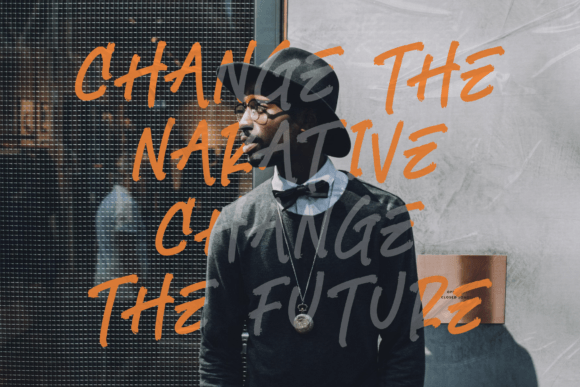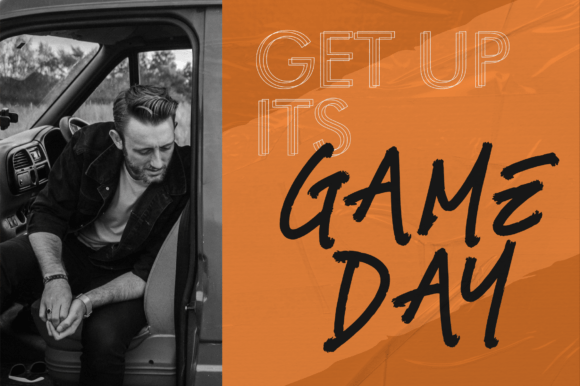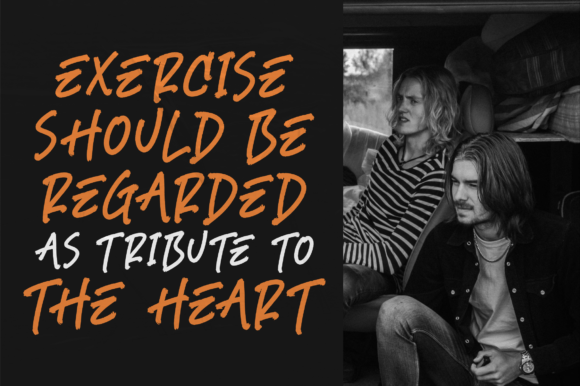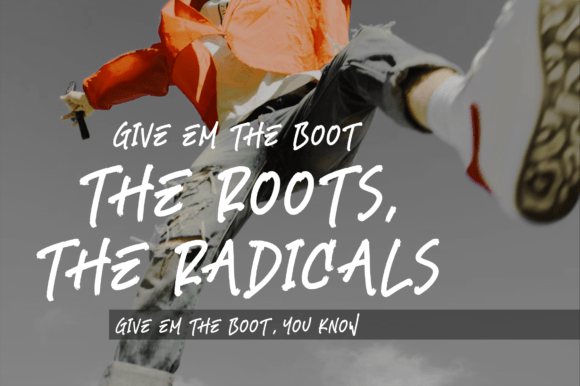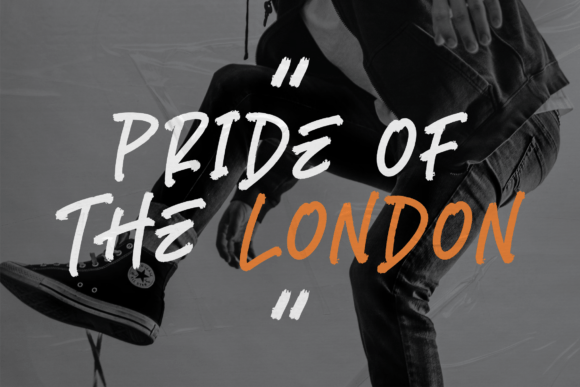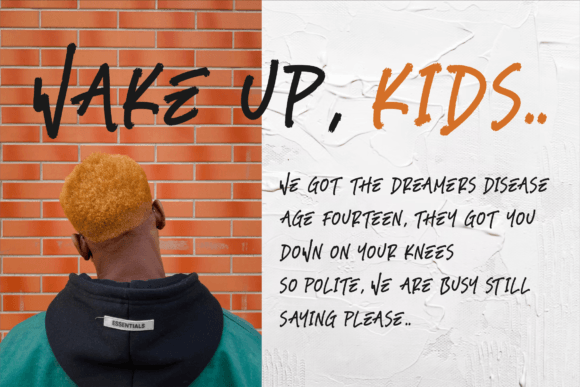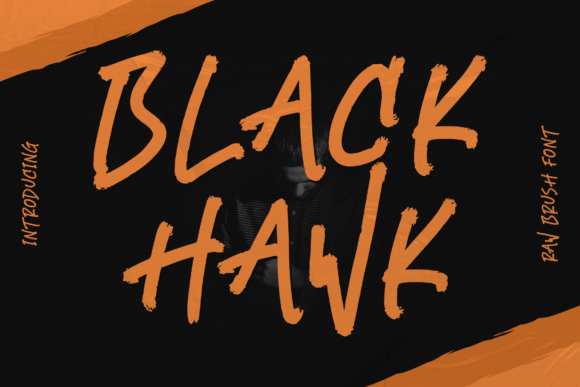
Introducing Black Hawk Font: The Raw Brush Font for Creative Projects
Are you a designer or crafter looking for a unique and stylish font to elevate your projects? Look no further than Black Hawk Font, a raw brush font from Perspectype Studio. This versatile font is perfect for a wide range of applications, from logos and branding projects to homeware designs, product packaging, and more.
What is Black Hawk Font?
Black Hawk Font is a carefully crafted raw brush font that exudes a sense of elegance and sophistication. With its bold, expressive brushstrokes, this font is ideal for adding a touch of personality to any project. Whether you’re working on a logo, a poster, or a product label, Black Hawk Font is sure to make a statement.
Key Features of Black Hawk Font
- Raw Brush Style: Black Hawk Font features a unique raw brush style that gives it a distinctive, hand-crafted feel.
- Versatile: This font is suitable for a wide range of projects, from logos and branding to homeware designs, product packaging, and more.
- Elegant and Sophisticated: Black Hawk Font’s bold, expressive brushstrokes add a touch of elegance and sophistication to any project.
Project Ideas Using Black Hawk Font
Black Hawk Font is perfect for a wide range of projects, including:
- Logos and Branding Projects: Create a bold and memorable logo for your business or brand with Black Hawk Font.
- Homeware Designs: Add a touch of elegance to your homeware designs, such as cushions, tote bags, and wall art.
- Product Packaging: Make your product packaging stand out with Black Hawk Font’s bold and expressive brushstrokes.
- Mugs and Quotes: Create inspiring quotes and designs for mugs, water bottles, and other homeware items.
- Posters and Shopping Bags: Use Black Hawk Font to create eye-catching posters and shopping bags that showcase your brand’s personality.
- T-Shirts and Apparel: Design stylish and comfortable t-shirts, hoodies, and other apparel with Black Hawk Font.
- Book Covers and Name Cards: Create professional-looking book covers, name cards, and business cards with Black Hawk Font.
- Invitation Cards and Greeting Cards: Add a touch of elegance to your invitation cards, greeting cards, and other stationery items.
- Labels and Photography: Use Black Hawk Font to create stylish labels and watermarks for your photography projects.
Why Choose Black Hawk Font?
Black Hawk Font is a high-quality, versatile font that offers a unique and stylish solution for designers and crafters. Here are just a few reasons why you should choose Black Hawk Font for your next project:
- Unique and Exclusive: Black Hawk Font is a carefully crafted raw brush font that offers a distinctive and exclusive look.
- High-Quality: This font is designed to deliver high-quality results, even at large sizes.
- Support for Creative Projects: By choosing Black Hawk Font, you’re supporting the creative process and helping to bring new and innovative designs to life.
Black Hawk Font is a versatile and stylish raw brush font that’s perfect for a wide range of creative projects. With its bold, expressive brushstrokes and elegant feel, this font is sure to elevate your designs and make them stand out. Whether you’re a designer, crafter, or DIY enthusiast, Black Hawk Font is a great choice for anyone looking to add a touch of personality to their projects.